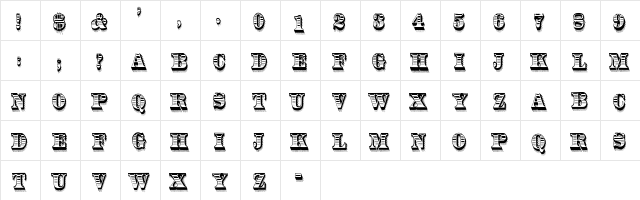
RadiantAntique Regular
Design Context for RadiantAntique Typeface
RadiantAntique wears its vintage influences proudly, with letterforms that recall mid-century signage, classic packaging, and nostalgia-driven design.
Font Pairing: Combine RadiantAntique with a simple slab or neutral sans — period-accurate companions reinforce the vintage feel without competing for attention.
Pro Tip: Lean into RadiantAntique's period character by pairing it with aged paper textures, muted colour palettes, and vintage illustration styles.